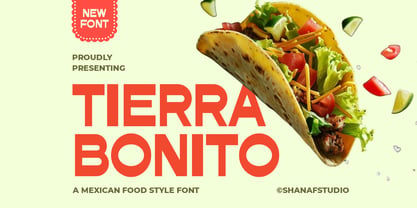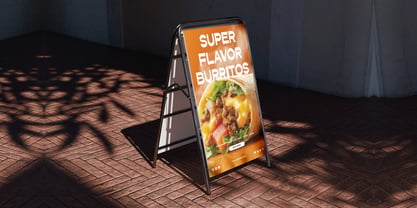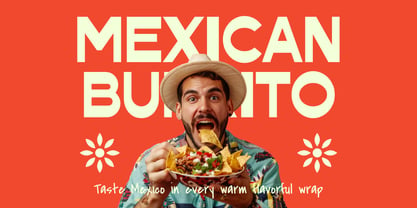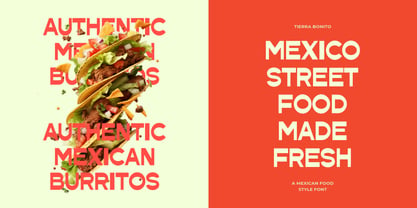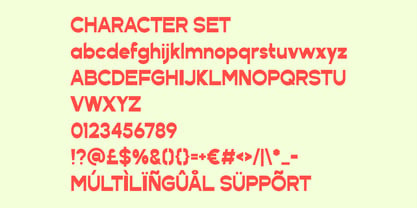
Tierra Bonito
por Shanaf
La familia tipográfica Tierra Bonito fue diseñada por Yesie Erma Yunita y publicada por Shanaf. Tierra Bonito contiene 1 estilos. Más información sobre esta familia
Tierra Bonito Mexican Food Style Font delivers strong flavor through bold geometric lettering and clean structure. The characters use thick strokes with uniform weight, giving every word a solid and confident presence. Wide proportions create strong readability from distance and on busy layouts. Rounded counters soften the heavy build and add a friendly tone. Tight spacing forms compact titles that feel energetic and impactful. This style blends playful branding with modern signage appeal. It suits taco shops, burrito bars, salsa brands, street food stalls, food trucks, snack labels, and restaurant identities. Use it for logos, menu boards, posters, packaging, advertisements, stickers, book covers, social media banners, and promo headlines. Tierra Bonito Mexican Food Style Font helps brands look lively, clear, and memorable in fast moving markets.
This font performs well in short words, pricing boards, campaign titles, and storefront names. Bold uppercase letters command attention while staying clean and easy to read. Lowercase forms add flexibility for casual messaging and modern branding systems. Circular shapes in letters bring warmth and a welcoming character. Straight cuts and sharp joins keep the design fresh and current. It matches themes such as fiesta, street market, handmade recipes, spicy menus, summer events, and family dining. Pair it with script accents or simple sans text for balanced layouts. Great for café menus, catering flyers, greeting cards, magazine titles, invitations, and promotional graphics. Choose this typeface when your brand needs cheerful energy, clear impact, and food focused personality.
Diseñadores: Yesie Erma Yunita
Fundición: Shanaf